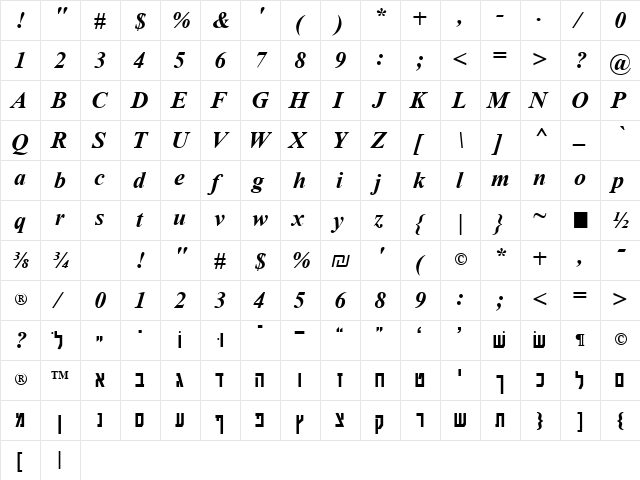
Globes BoldItalic
Design Context for Globes Typeface
Globes offers clean, dependable letterforms without strong stylistic allegiance, making it a practical choice for designers who need flexibility. Its italic angle brings a sense of urgency and motion to the letterforms. The heavy weight commands attention and anchors typographic hierarchies.
Pro Tip: Use Globes for emphasis, pull quotes, and subheadings where its slanted energy can add rhythm to the layout.